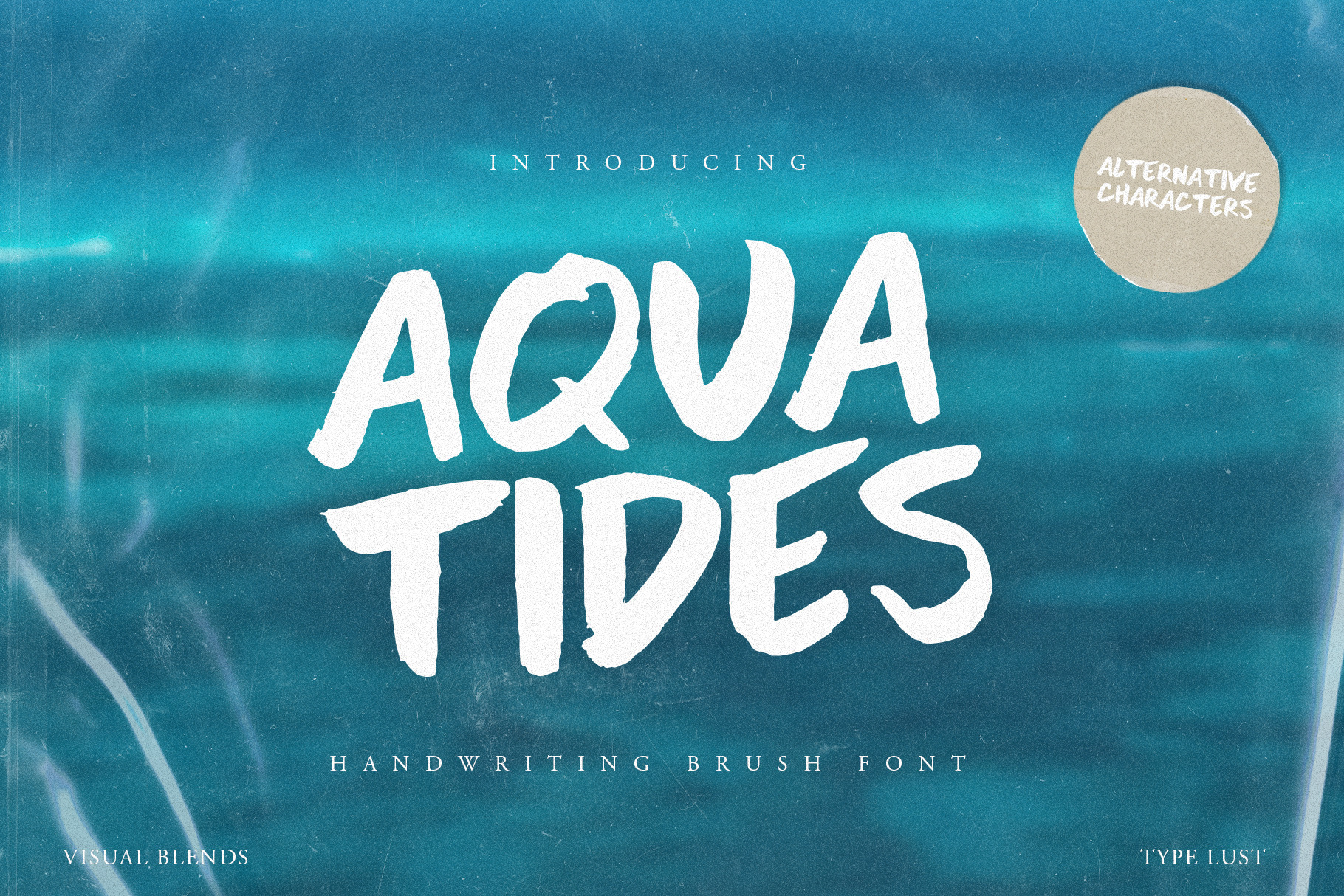
Aqua Tides - Brush Font
Aqua Tides is a custom handwritten brush font created with irregular characters to give this typeface a handcrafted aesthetic. Leverage upper and lower case characters to add variation to your designs. This typeface is perfect for bold statements and pairs well with a clean sans serif font. Made with love.
- Upper and Lowercase Characters
- Alternate Uppercase characters